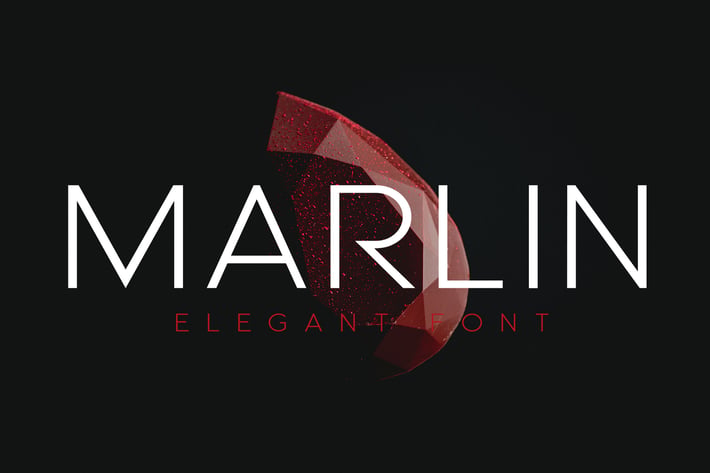
MARLIN - Luxury font
Marlin is luxury font for your business. Hi there, this is font is perfect for magazine, headline news, web, news, logo, beauty poster, and any other modern these day project